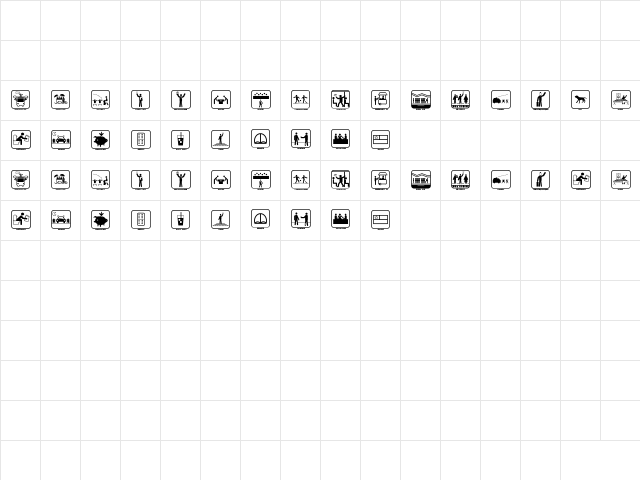
Complete SANTIAGO ICONO Regular glyph index. Displaying only characters natively supported by SANTIAGO ICONO Regular font.
SANTIAGO ICONO is a composed and adaptable typeface that performs quietly and consistently across a wide range of design contexts.